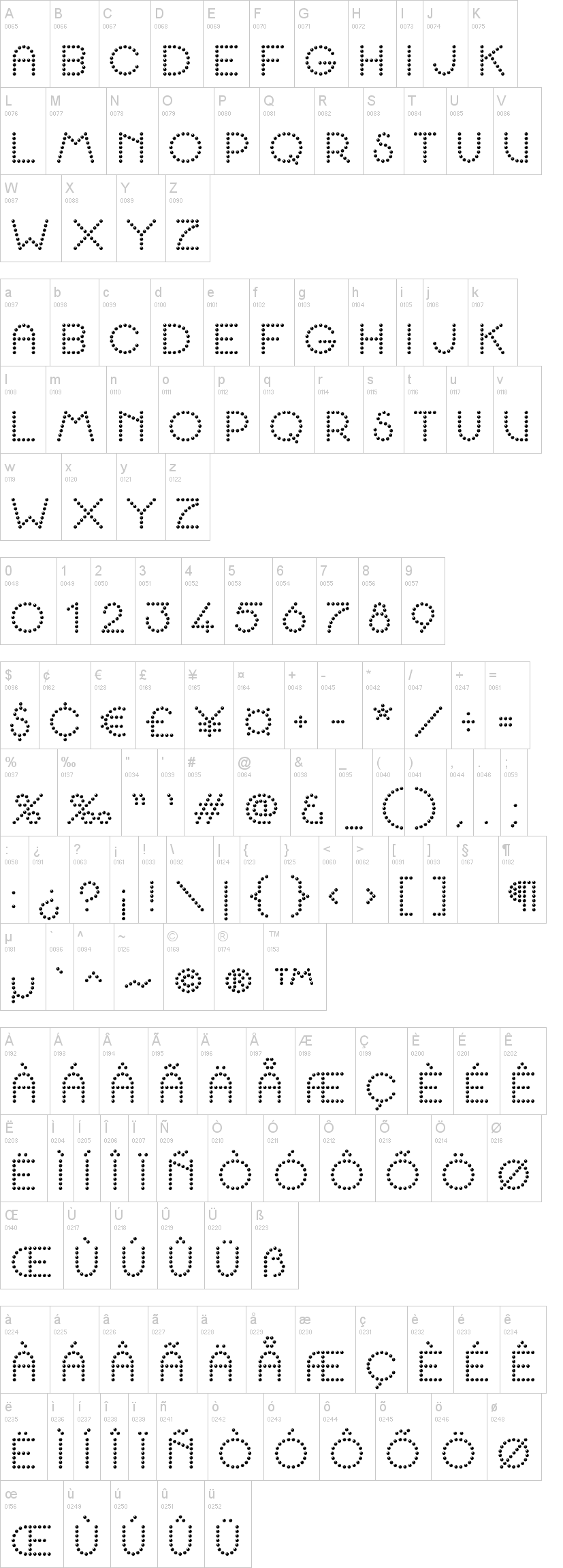
Note of the authorUse font in large point sizes, preferably over 100 pts., to make the highlight (small dot inside the circles) visible.
Added Cyrillic (Basic Russian Alphabet)